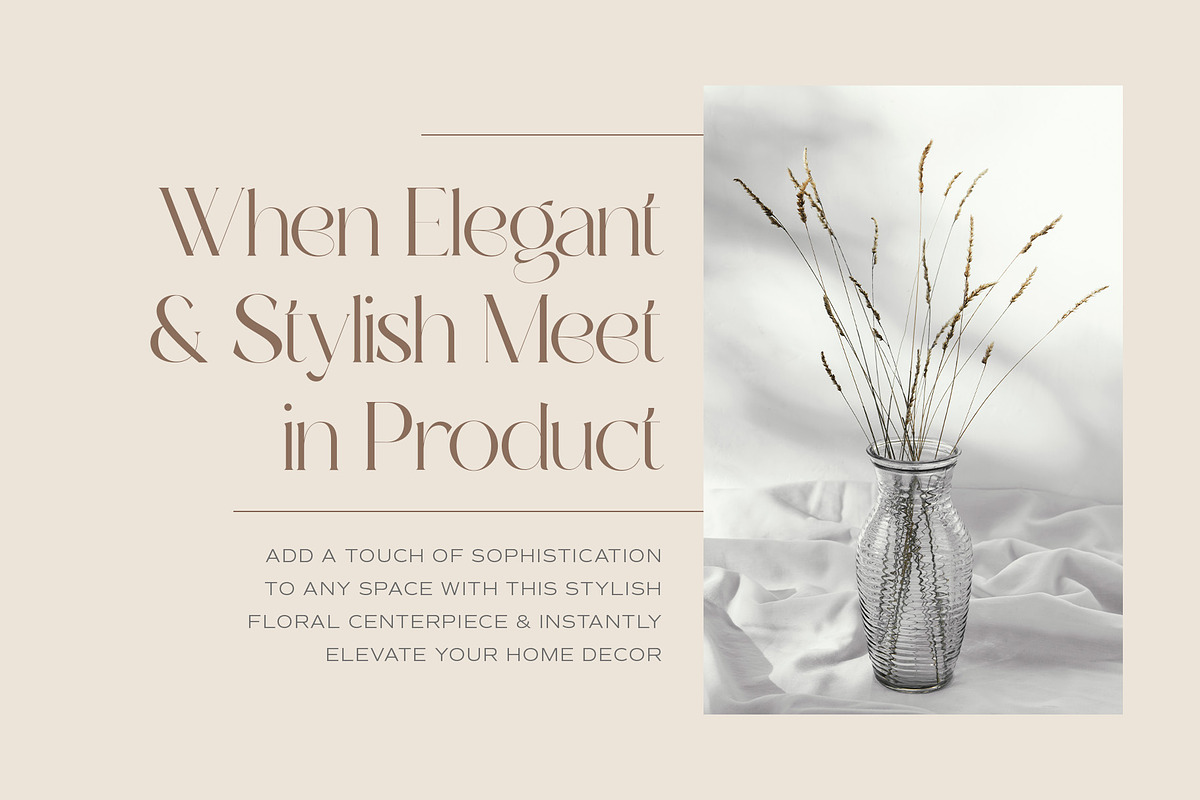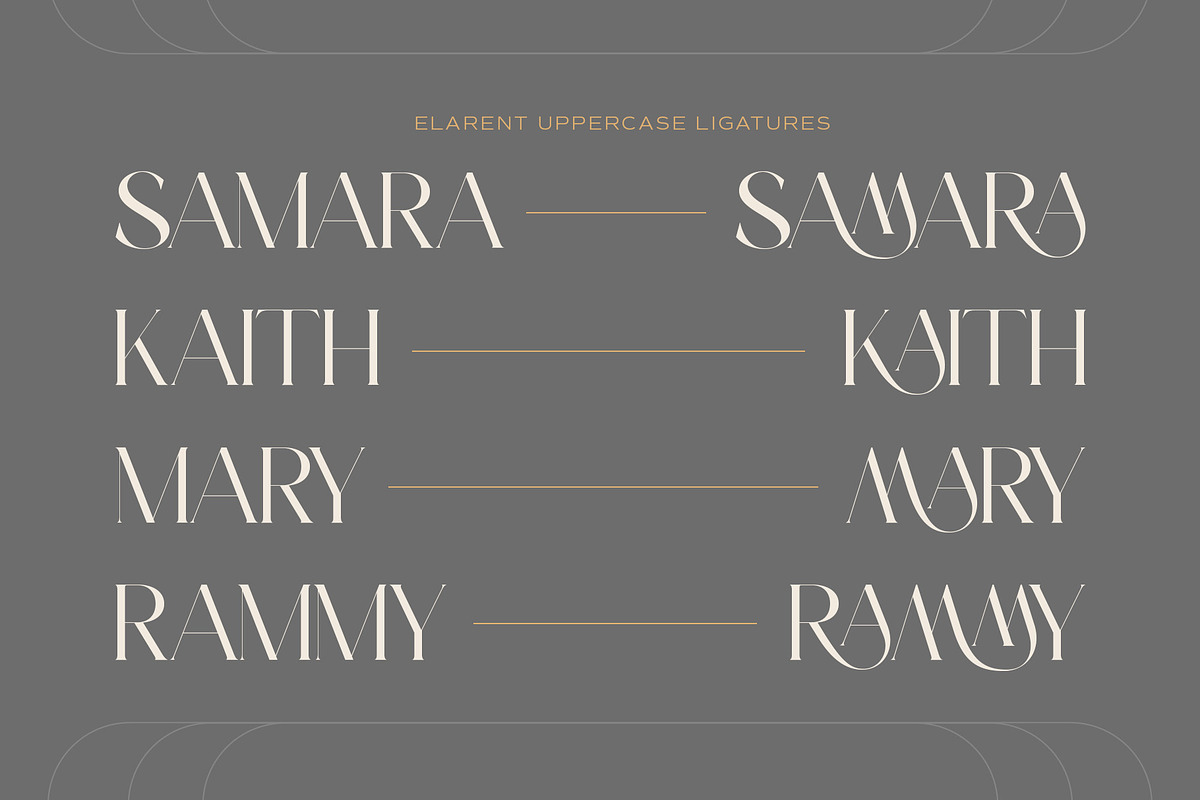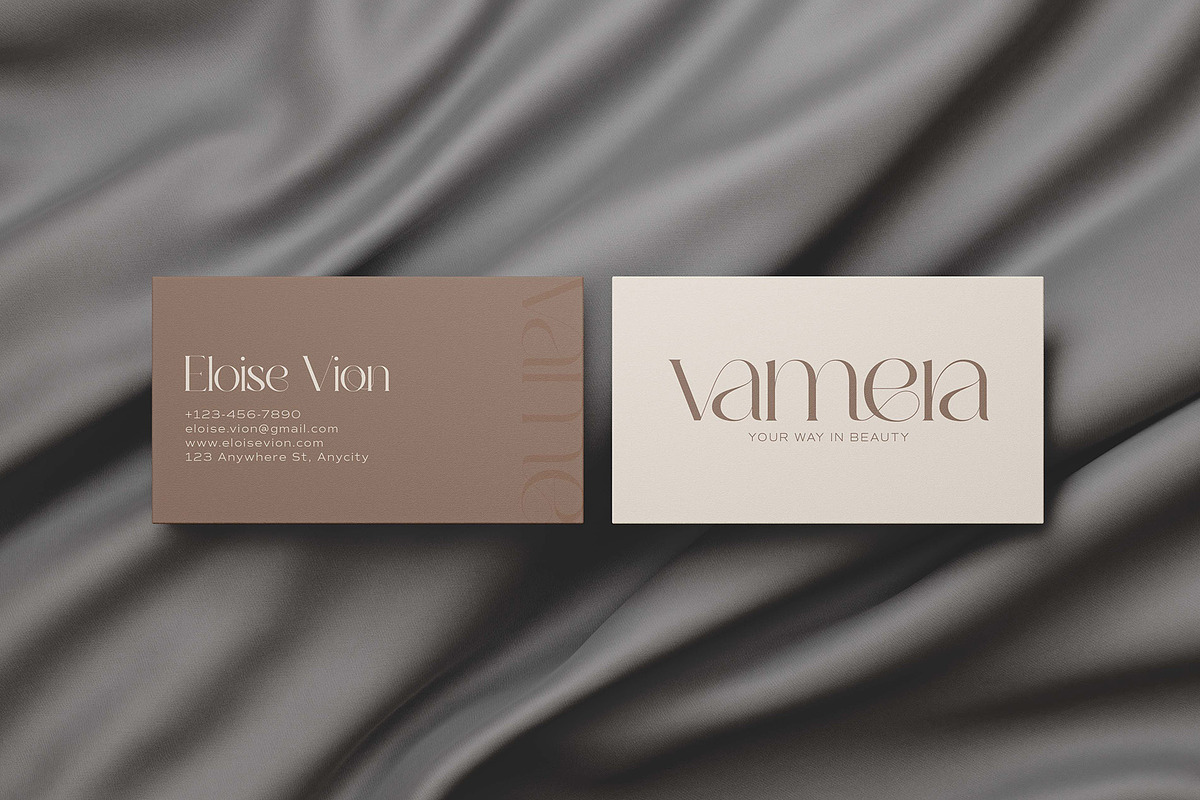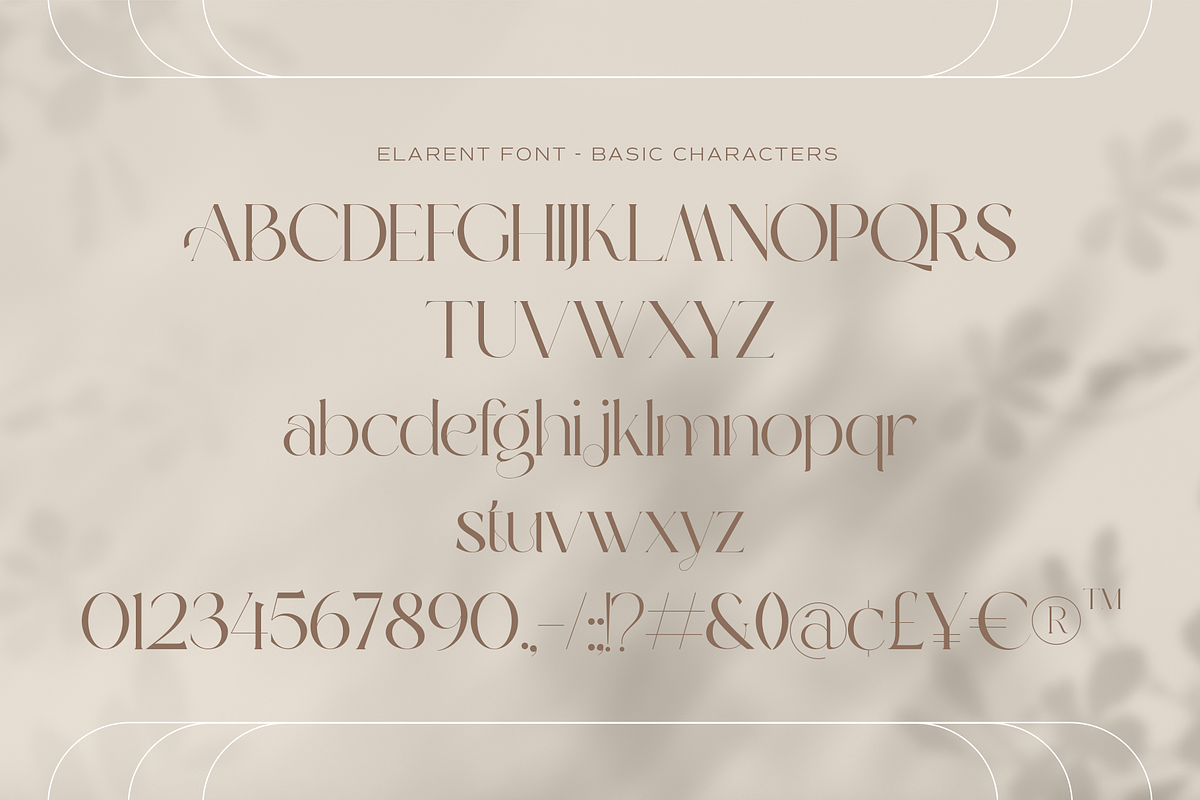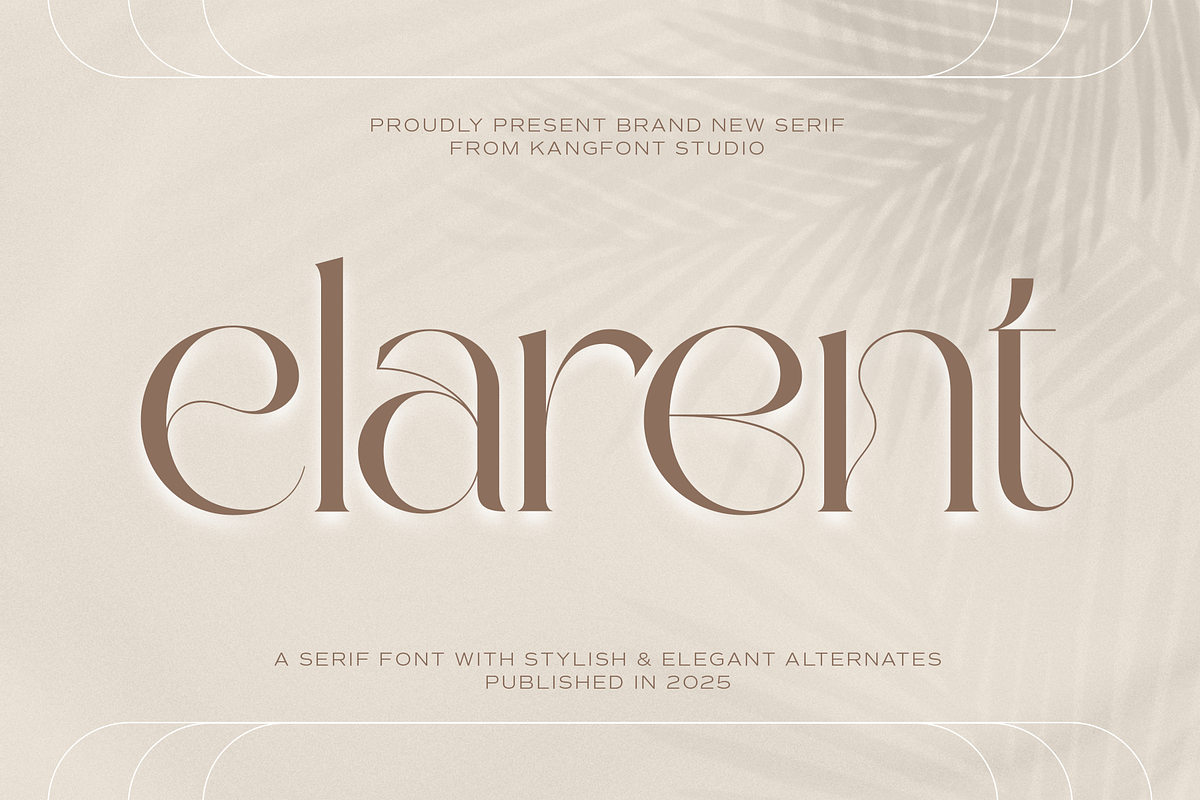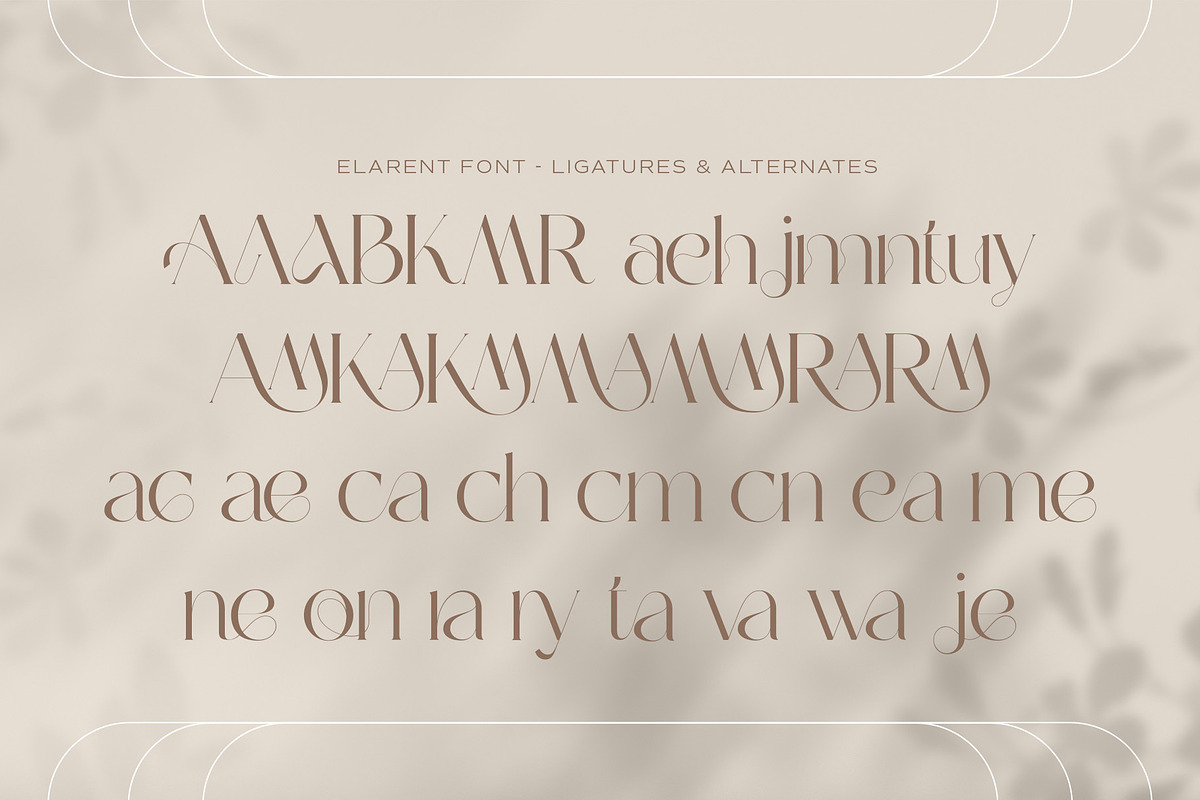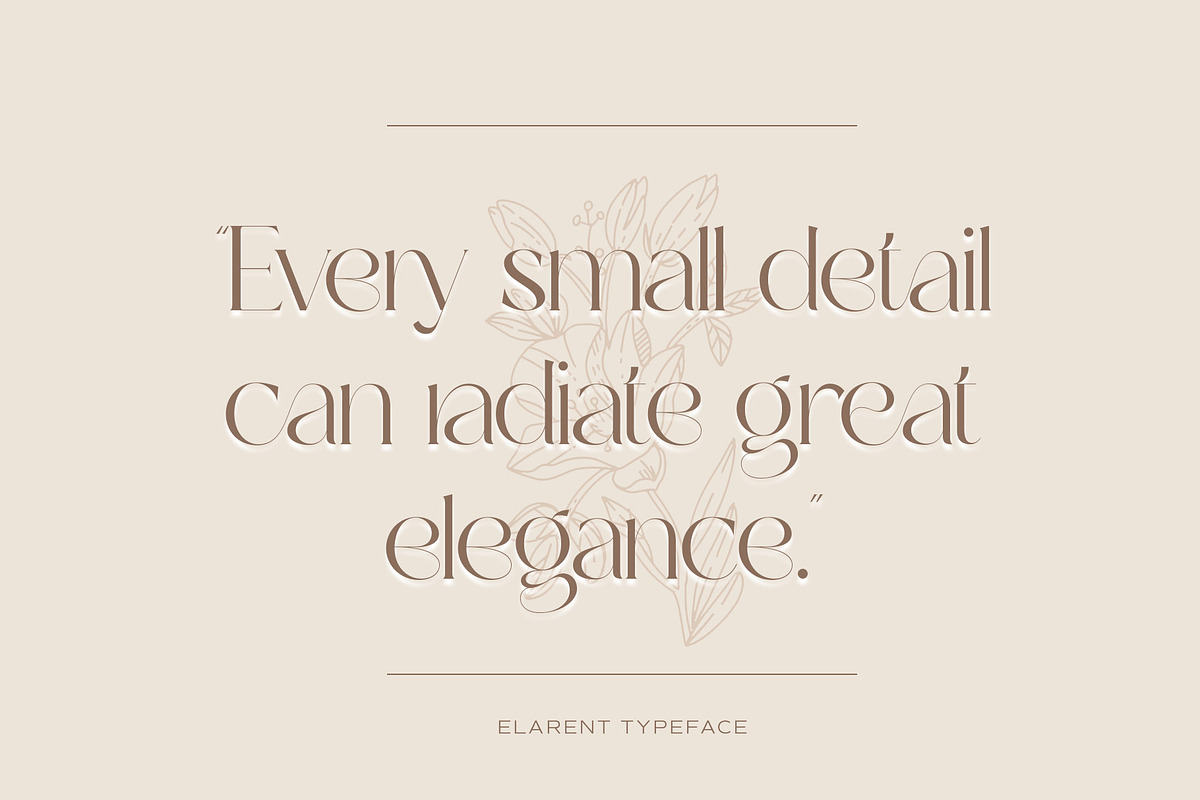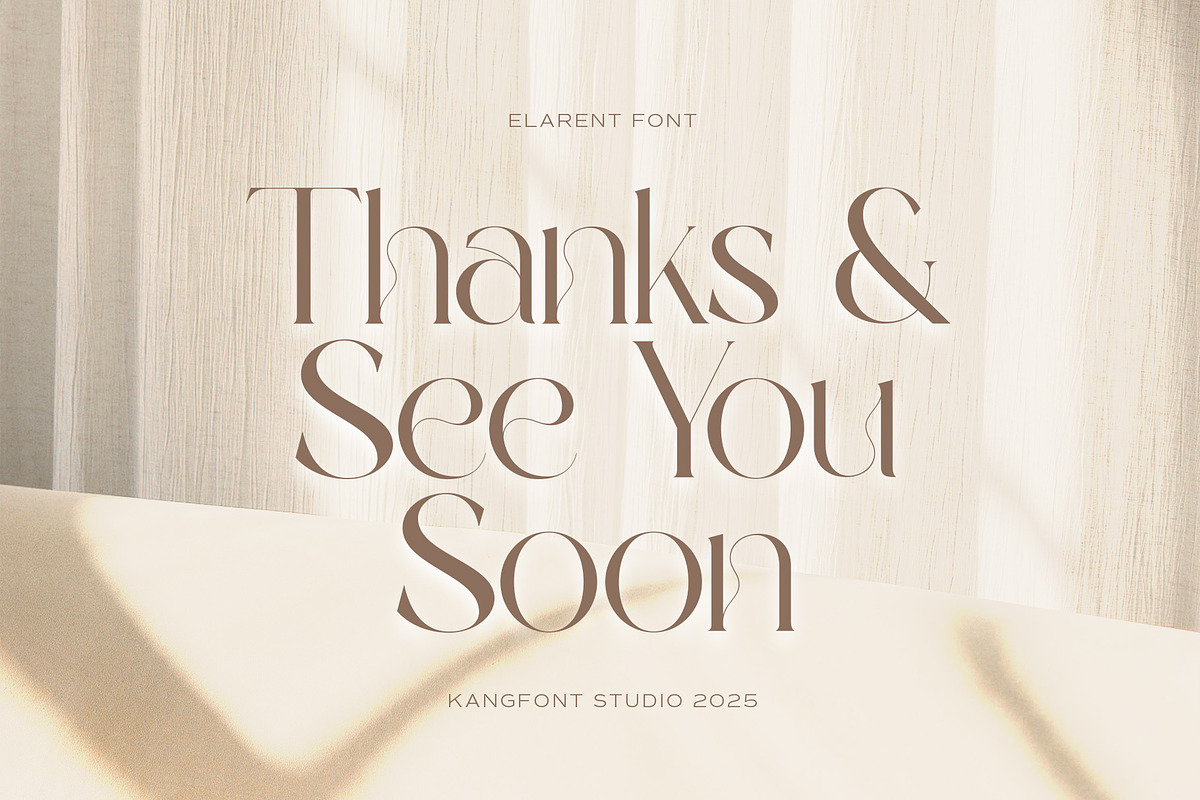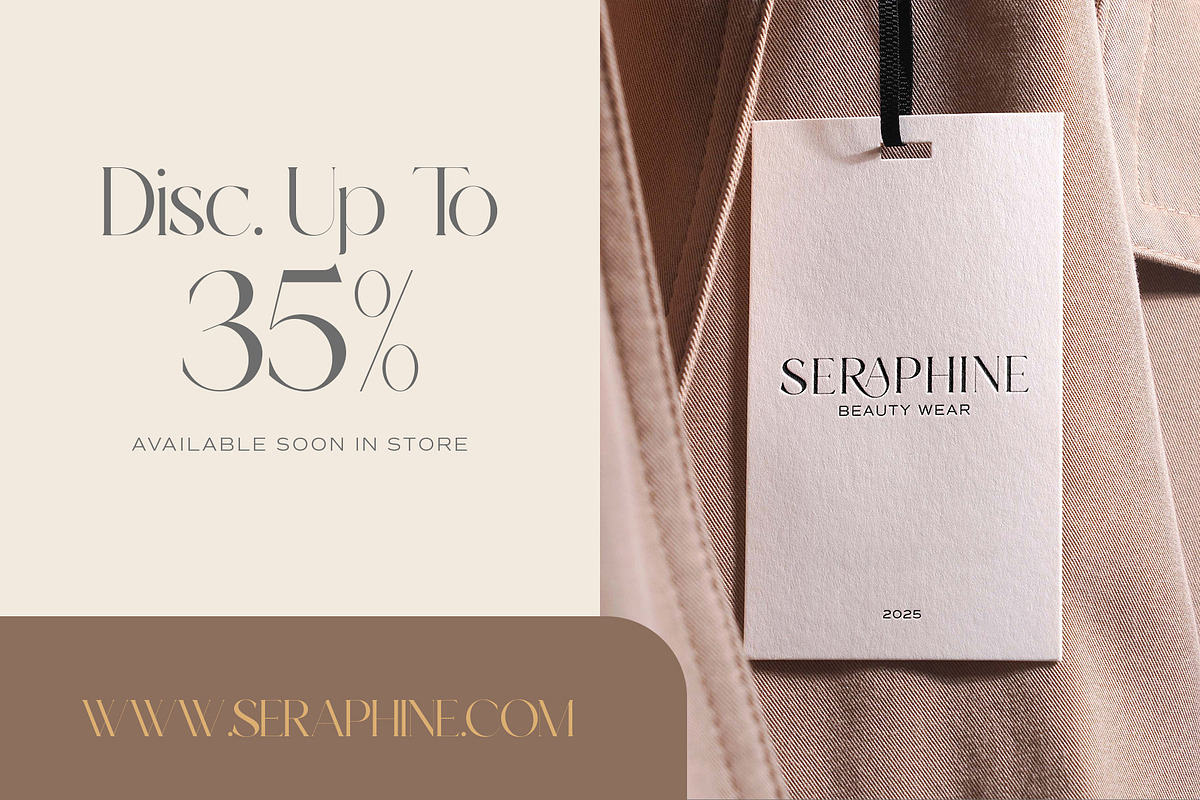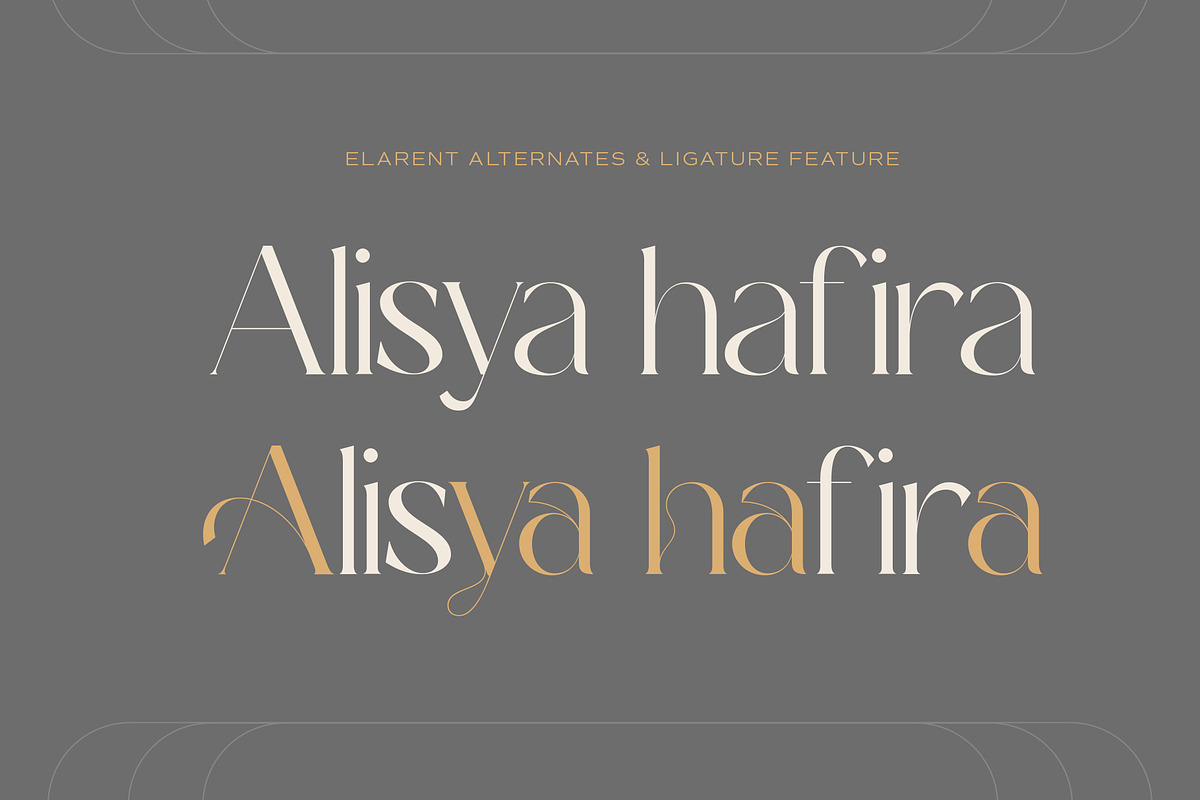
Elarent – Elegant Display Serif Font
Elarent is a sophisticated serif font designed to elevate your creative projects with a touch of elegance and modern flair. This typeface features stylish letterforms and a range of graceful alternates, making it perfect for branding, editorial design, wedding invitations, logo design, and high-end packaging.
With its refined curves and artistic ligatures, Elarent blends timeless serif tradition with contemporary aesthetics. Whether you're working on a luxury fashion brand or a chic minimalist poster, this font will add a sense of charm and class to your design.
- Ligature & Stylistic alternate
- Branding & Logos
- Editorial & Magazine Design
- Wedding Stationery
- Packaging Design
- Social Media & Web Use